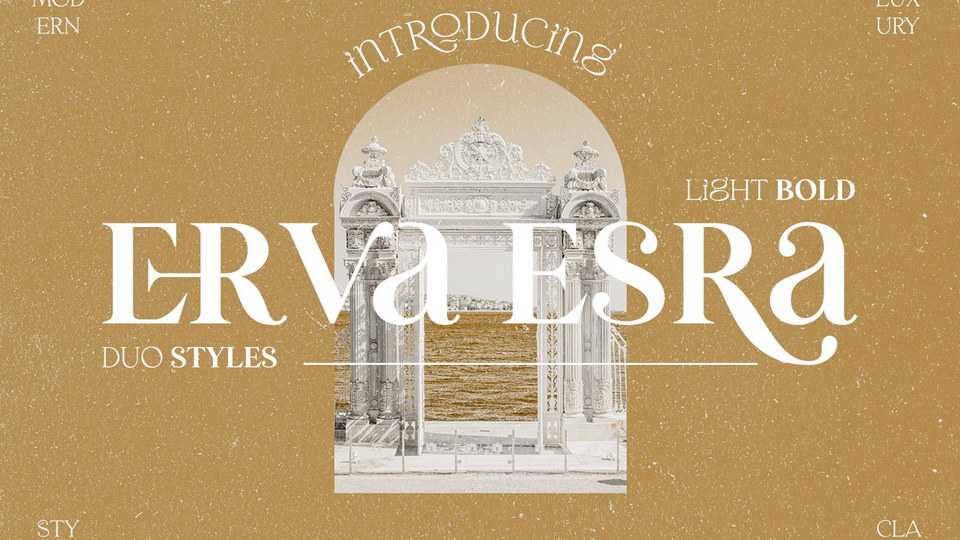
Download Erva Esra font, a modern quirky serif typeface with a stylish touch. Erva Esra is perfect for the purposes of designing templates, brochures, videos, advertising branding, logos and more.
Designer: Dxsign